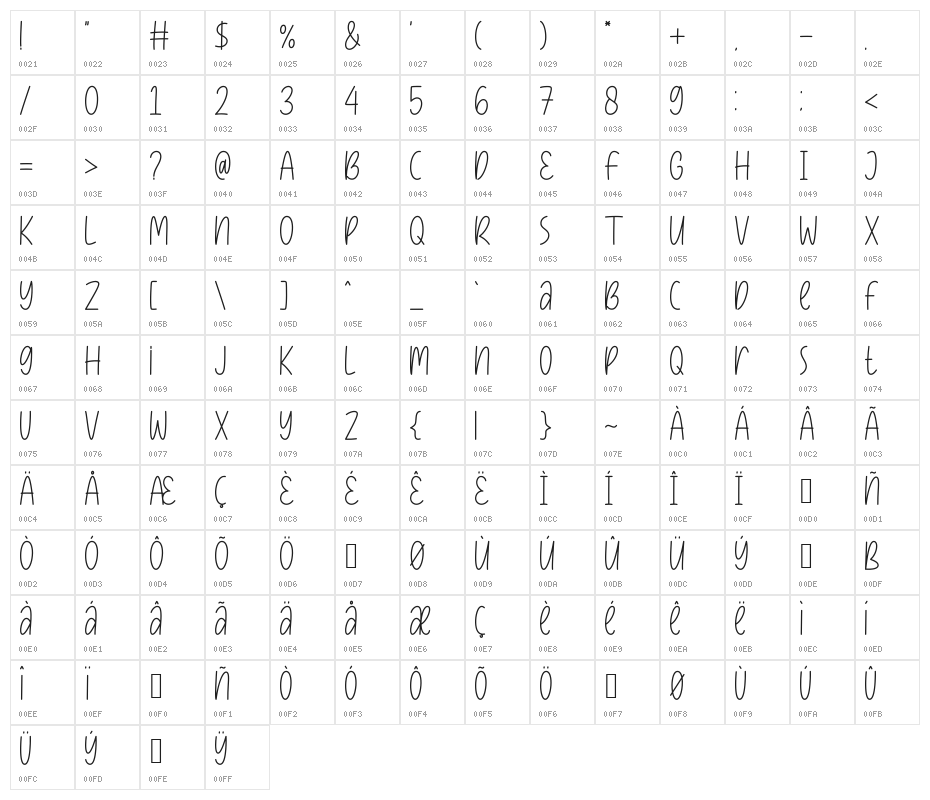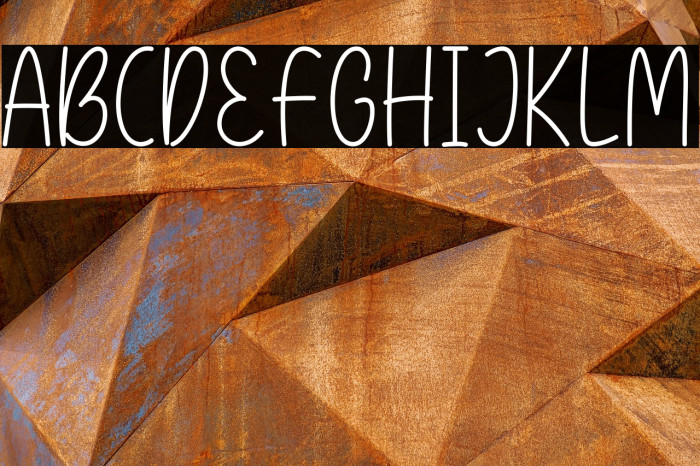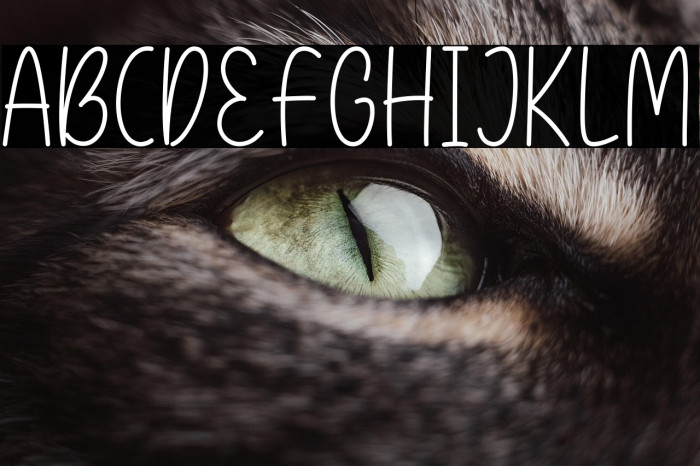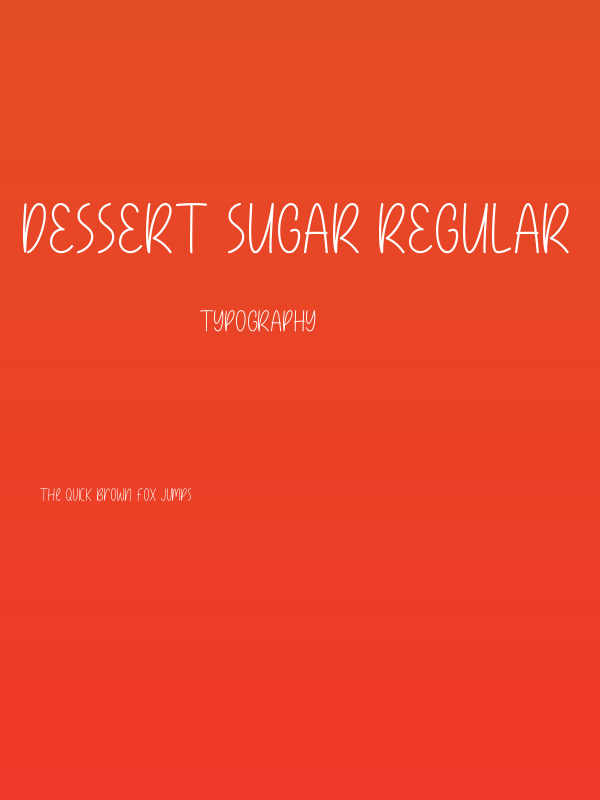
Dessert Sugar Regular Font
Dessert Sugar Regular Description
This font features a playful and casual handwritten style, characterized by its smooth, flowing lines and slightly irregular letterforms. The uppercase and lowercase letters maintain a consistent height, giving a uniform appearance while retaining a sense of individuality in each character. The numbers and special characters are crafted with the same playful aesthetic, making them blend seamlessly with the alphabet. The overall design is approachable and friendly, making it suitable for projects that require a personal touch. The strokes are consistent in width, providing a clean and modern look without any dramatic contrast.
| Use Case | Logos, Headlines, Social Media |
| Proposed Projects | Ideal for greeting cards, invitations, personal branding, and social media graphics. |